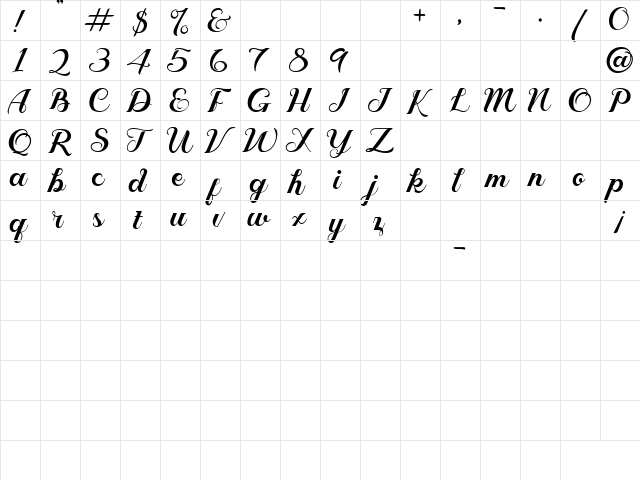
Geruthu Regular
| Designer | Grontype |
Design Context for Geruthu Typeface
Geruthu is a composed and adaptable typeface that performs quietly and consistently across a wide range of design contexts.